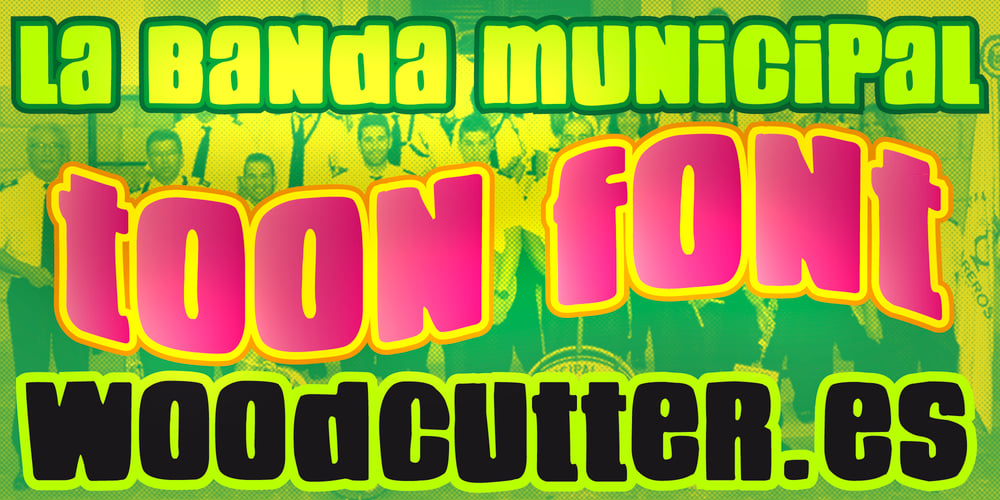
La Banda Municipal Font Family was designed by Jordi Manero and published by Woodcutter. La Banda Municipal contains 1 styles and family package options. “La Banda Municipal” is a fun and cheerful display font that transforms lowercase letters into almost uppercase, creating a unique and eye-catching visual effect. With well-defined contours and a playful style, this typeface is perfect for projects seeking an informal and creative touch. It also includes accents, making it ideal for Spanish texts. It’s the perfect choice for posters, festive events, and any design that needs to stand out with a friendly and relaxed character.